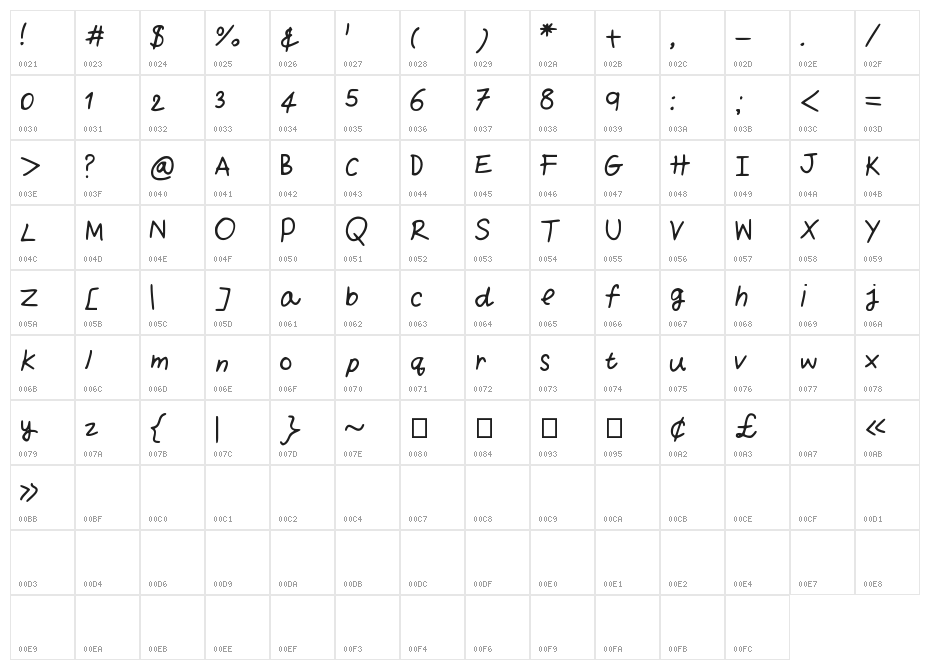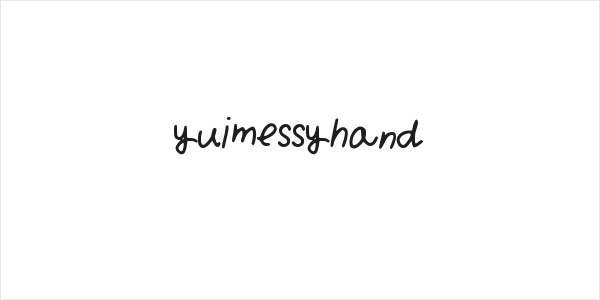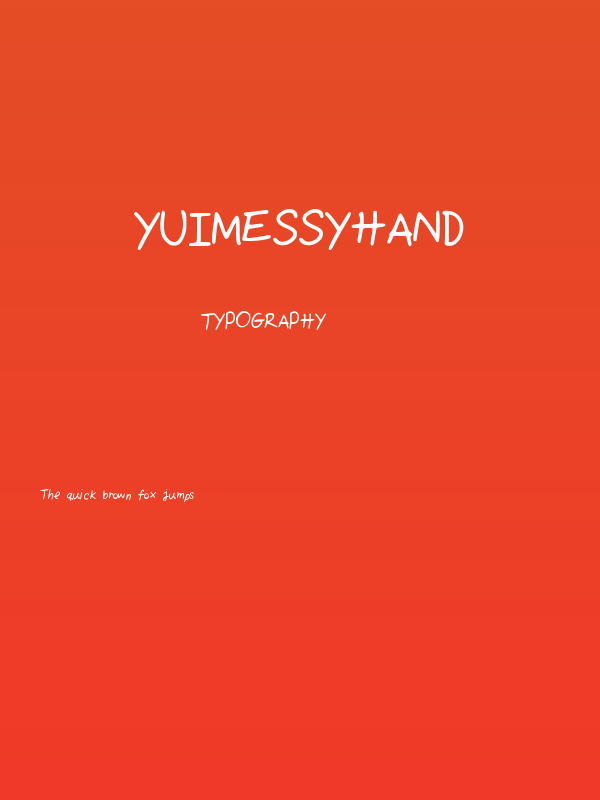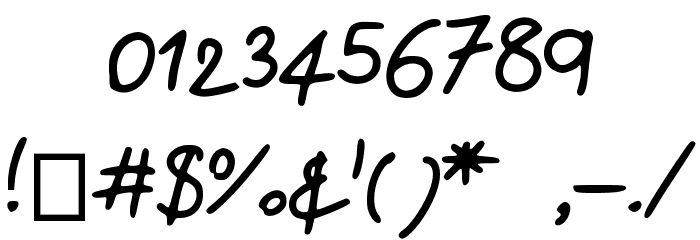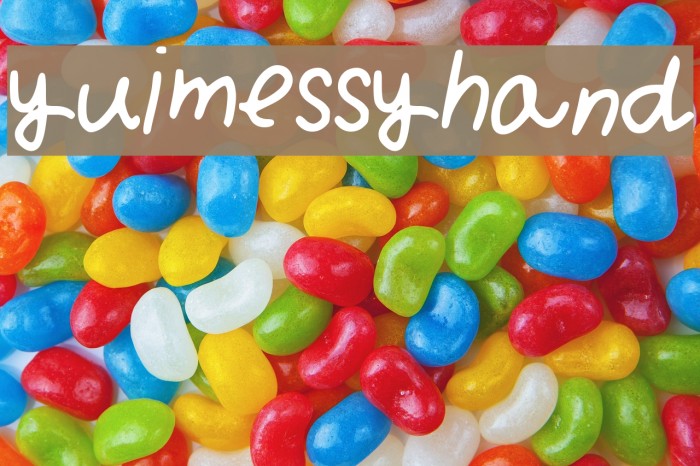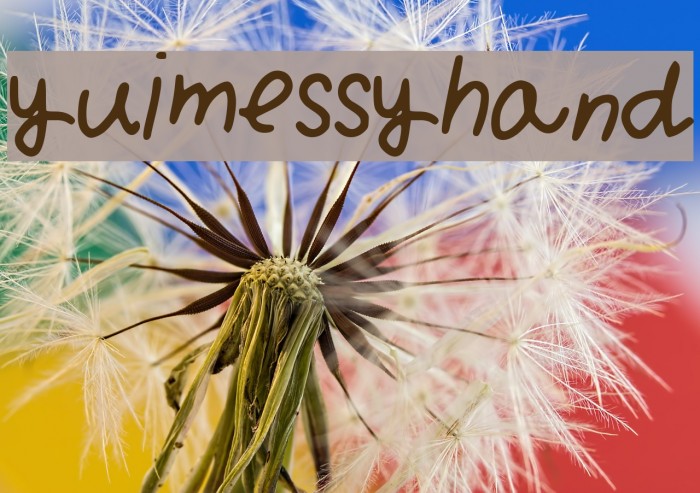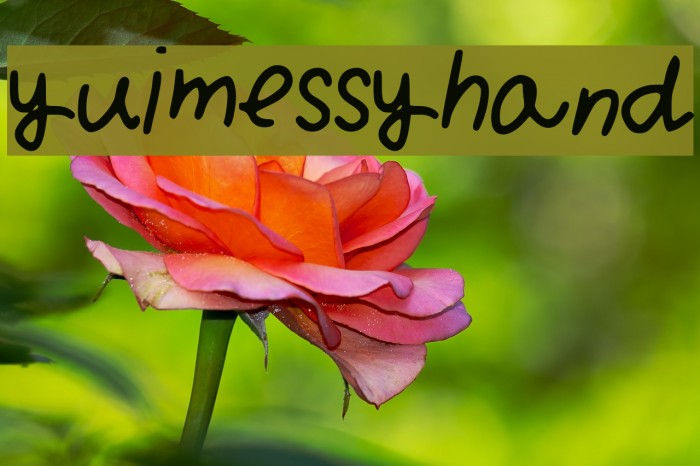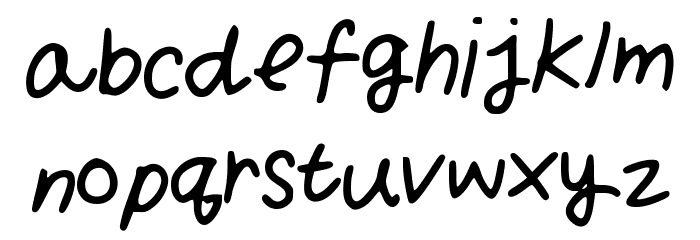
yuimessyhand Font
yuimessyhand Description
This font exudes a playful and casual handwritten style, characterized by its uneven strokes and organic flow. The letters are slightly tilted, giving an informal and friendly appearance. The uppercase and lowercase letters maintain a consistent style, with rounded edges and varying stroke thickness that adds to the hand-drawn feel. The numerals and special characters follow the same aesthetic, ensuring a cohesive look across all glyphs. This font is ideal for projects that require a personal touch, such as greeting cards, invitations, or creative branding materials.
| Use Case | Headlines, Creative projects, Personal notes |
| Proposed Projects | Ideal for greeting cards, invitations, creative branding, and personal projects. |